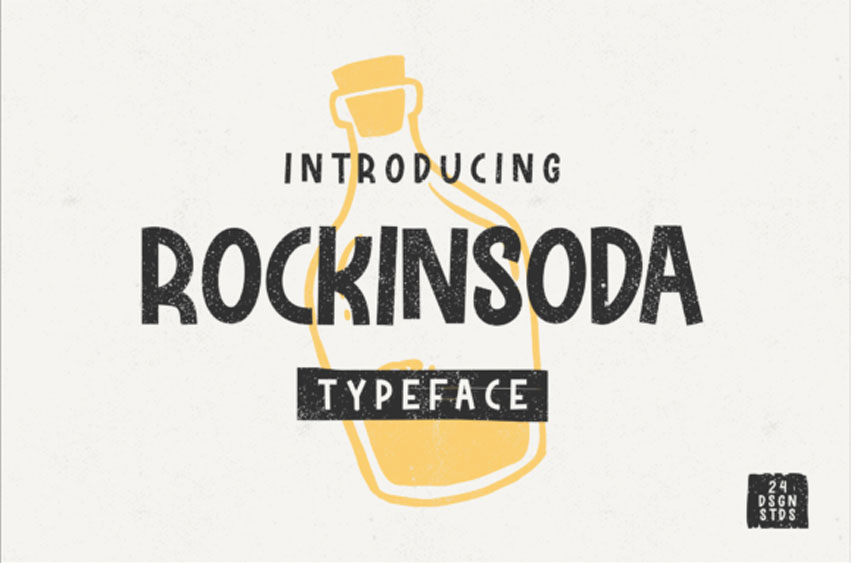
Rockinsoda Font
Rockinsoda Font is a striking display font with a child-like handwritten look.
It’s perfect for something related to food, children, kids illustrations, book titles, website title, writing on video, or any other design which needs a fun typeface.